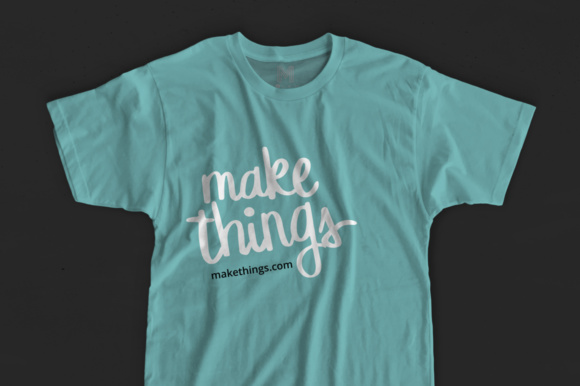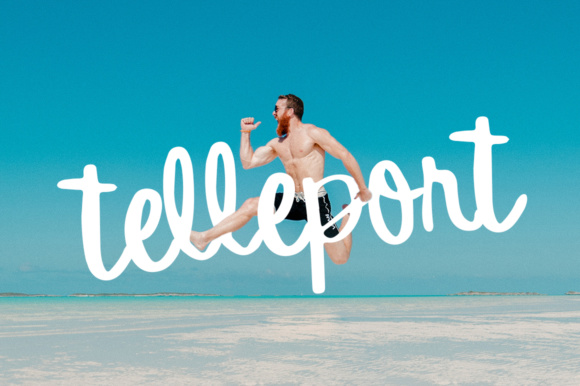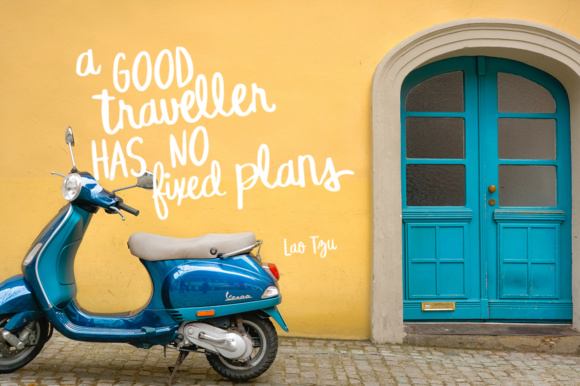
The Perfect Imperfection: Unleashing the Magic of Brougets Script Font
There’s something special about the moment when a creative idea clicks, and you know exactly what you want to express. It’s that spark of inspiration that drives us to create, and for designers, it’s a feeling we chase every time we sit down at our desks. For me, it’s the moment I stumbled upon the Brougets Script Font – a hand-lettered brush script with a strong personality that perfectly captures the essence of imperfection.
The Brougets Script Font is a unique and expressive typeface that’s designed to add a touch of personality to your designs. With its playful, handwritten feel, it’s the perfect choice for brands and creatives who want to stand out from the crowd. Whether you’re looking to add a personal touch to your logo, create a stunning typography-based art piece, or simply add some visual interest to your social media graphics, the Brougets Script Font is a valuable addition to any designer’s toolkit.
Brougets Script Font Key Features
- Unique Characteristics: Brougets Script Font features a unique, hand-drawn design with elegant and flowing lines, making it perfect for creating beautiful and sophisticated designs.
- Script and Calligraphy Style: The font is designed to mimic traditional calligraphy and script styles, adding a touch of elegance and sophistication to any design.
- Professional and Elegant Design: The font is designed to be professional and elegant, making it perfect for use in business cards, invitations, wedding stationery, and other high-end designs.
Brougets Script Font Review
As a designer, I was excited to dive into the world of Brougets Script Font. This elegant script font has a lot to offer, and I’ll break down the good and the not-so-good.
- Stunning Calligraphy: Brougets Script Font boasts beautiful, intricate calligraphy that adds a touch of sophistication to any design.
- Limited Character Set: The font’s character set is limited, which may cause issues when working with non-English languages or requiring specific characters.
- No Ligatures: Brougets Script Font does not include ligatures, which can result in uneven spacing and a less polished look.
While Brougets Script Font has its limitations, its stunning calligraphy and high-quality vectors make it a great choice for designers looking to add a touch of elegance to their projects. However, the limited character set and lack of ligatures may be a drawback for those requiring more flexibility.
Tips for Getting the Most Out of Brougets Script Font
Use Brougets Script Font for titles, headings, and quotes to add a touch of elegance and sophistication to your designs.
Experiment with different font sizes and colors to create a unique look that suits your brand or project.
Combine Brougets Script Font with other fonts to create a visually appealing typography.
Brougets Script Font is ideal for:
Branding and logos
Book covers and publishing materials
Special event invitations and announcements